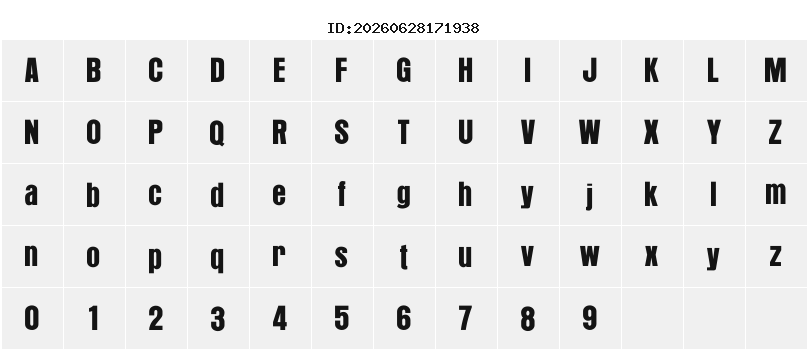
About ???{???u02.ttf
???{???u02.ttf is a modern, elegant sans-serif font designed for ultimate readability and visual harmony. Perfect for branding, headlines, web design, and print materials.